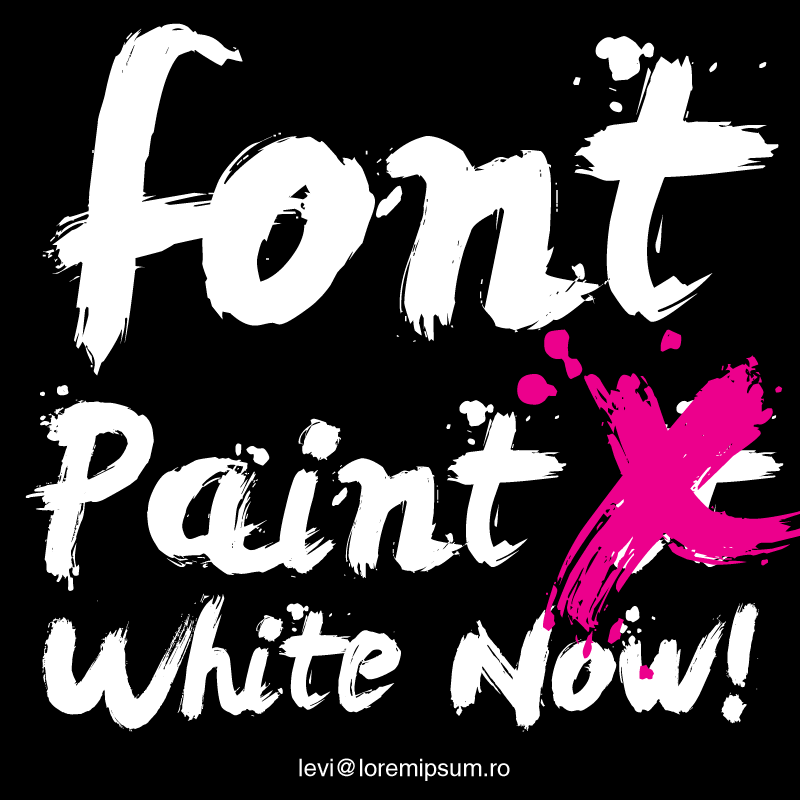
Font name: | Levi ReBrushed |
Author: | Levi Szekeres |
Note by Levi Szekeres | |
The Levi Brush remastered, meaning a few kernings, size adjustments and new characters in this font. The first version was a raw design to let people be creative, but it seems that some need this version, since design lately is done in a hurry or this is used for longer texts. I can totally relate to this. |